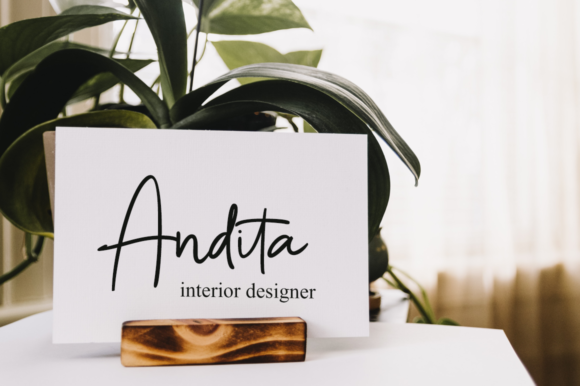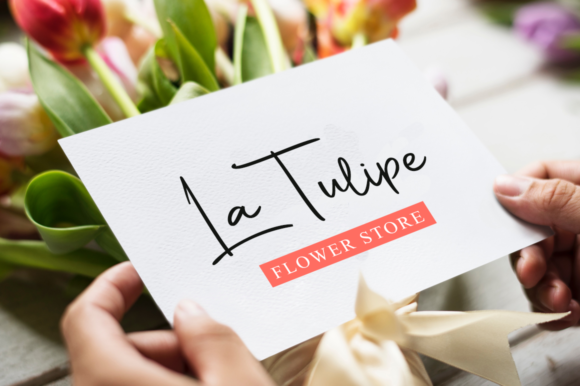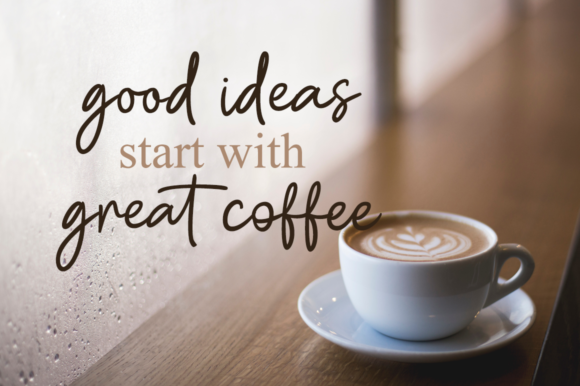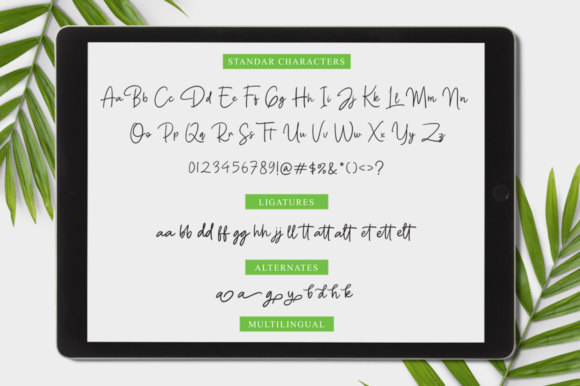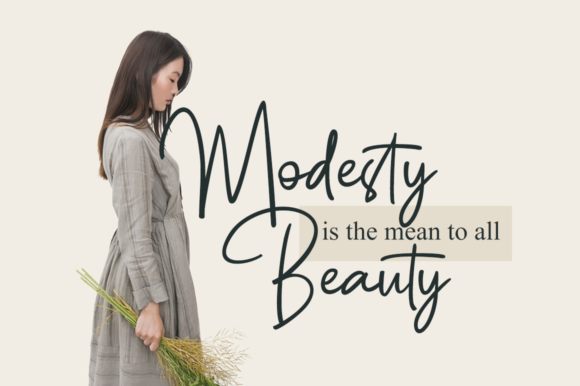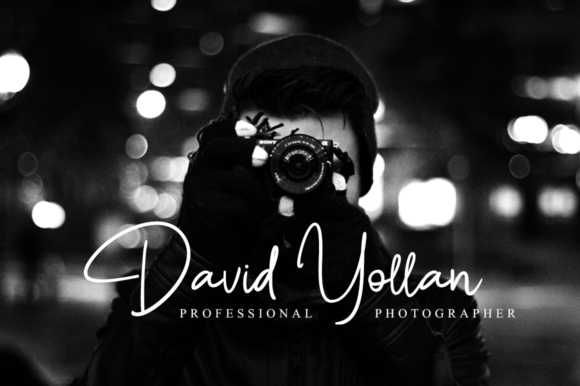
Introducing the Betty Lavea Font: A Modern Handwritten Style for Your Designs
The Betty Lavea font is a modern handwritten font that has taken the design world by storm. With its natural, effortless style, this font is perfect for adding a personal touch to any design project. Whether you’re a designer, crafter, or simply someone who loves to create, the Betty Lavea font is a must-have in your typography arsenal.
The Characteristics of the Betty Lavea Font
The Betty Lavea font boasts a unique, handwritten style that is both modern and elegant. Its natural, flowing lines give it a organic feel that is perfect for a wide range of design applications. The font’s characters are carefully crafted to resemble handwriting, with subtle variations in line width and spacing that create a sense of movement and fluidity.
What Makes the Betty Lavea Font So Versatile?
One of the things that sets the Betty Lavea font apart from other handwritten fonts is its versatility. This font can be used for a wide range of design projects, from branding and packaging to signatures, labels, and more. Its clean, legible lines make it perfect for body text, while its elegant style makes it ideal for headings and titles.
The Betty Lavea font is a dream come true for designers and crafters who are looking for a unique and versatile typography solution. Whether you’re creating custom stationery, designing a brand identity, or crafting handmade products, this font is sure to become a favorite. Its natural, handwritten style adds a personal touch to any design, making it perfect for projects that require a human touch.
Use Cases for the Betty Lavea Font
So, what can you use the Betty Lavea font for? The possibilities are endless! Here are just a few ideas to get you started:
- Branding: Use the Betty Lavea font to create a unique and memorable brand identity that sets you apart from the competition.
- Packaging: Add a personal touch to your product packaging with the Betty Lavea font, perfect for labels, tags, and more.
- Signatures: Create custom signatures that are both elegant and professional with the Betty Lavea font.
- Labels: Use the Betty Lavea font to create custom labels for your products, gifts, or DIY projects.
- Stationery: Create custom stationery that is both beautiful and functional with the Betty Lavea font.
Why Choose the Betty Lavea Font?
So, why choose the Betty Lavea font over other typography solutions? Here are just a few reasons:
- Unique style: The Betty Lavea font has a unique, handwritten style that sets it apart from other fonts.
- Versatility: This font can be used for a wide range of design projects, from branding and packaging to signatures and labels.
- Elegant and modern: The Betty Lavea font is both elegant and modern, making it perfect for designers and crafters who want to create beautiful, high-quality designs.
- Easy to read: The font’s clean, legible lines make it easy to read, even at small sizes.
In conclusion, the Betty Lavea font is a modern handwritten font that is perfect for designers and crafters who want to add a personal touch to their designs. With its natural, effortless style and versatile design, this font is sure to become a favorite in your typography arsenal. Whether you’re creating custom stationery, designing a brand identity, or crafting handmade products, the Betty Lavea font is the perfect choice.